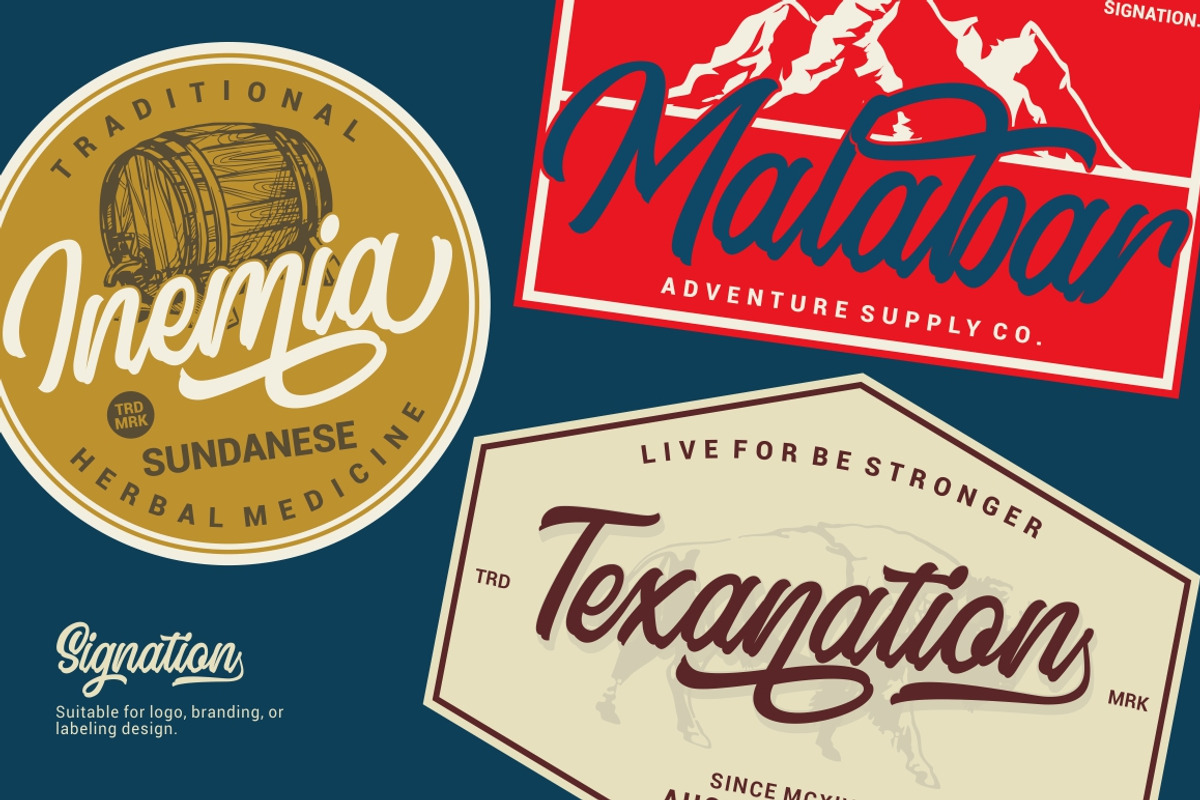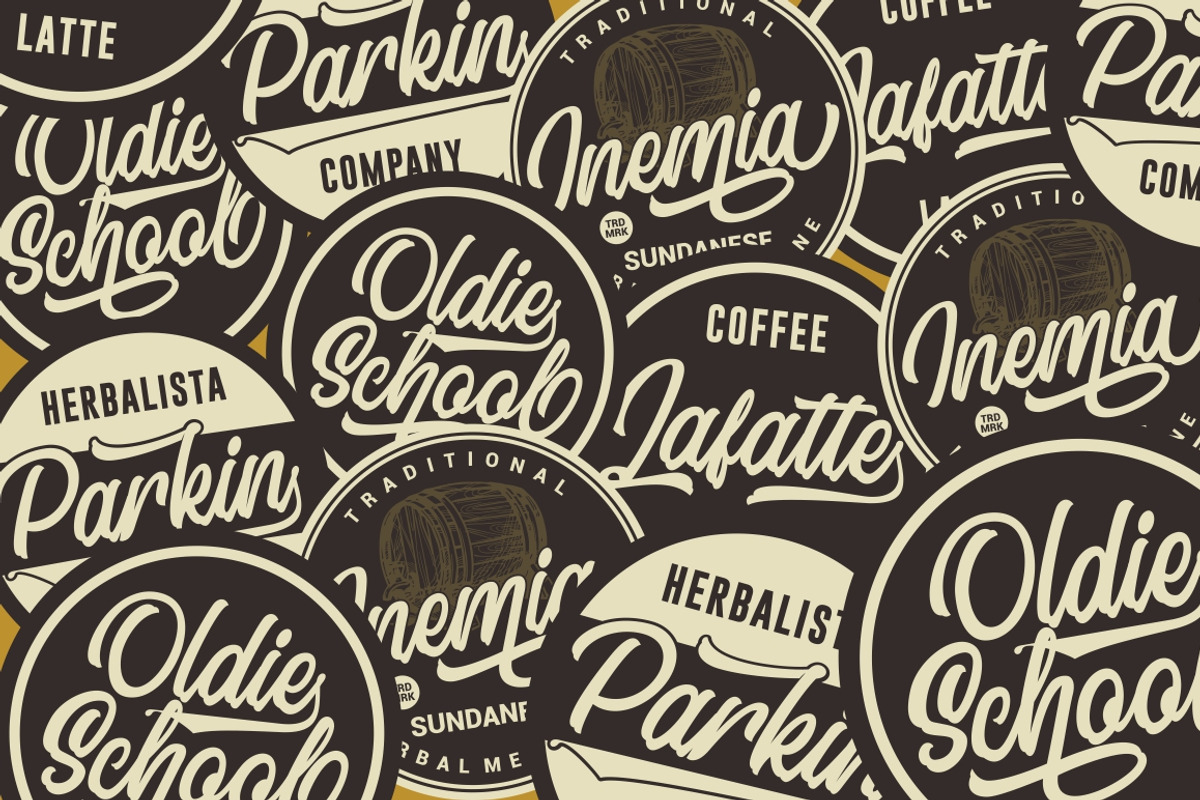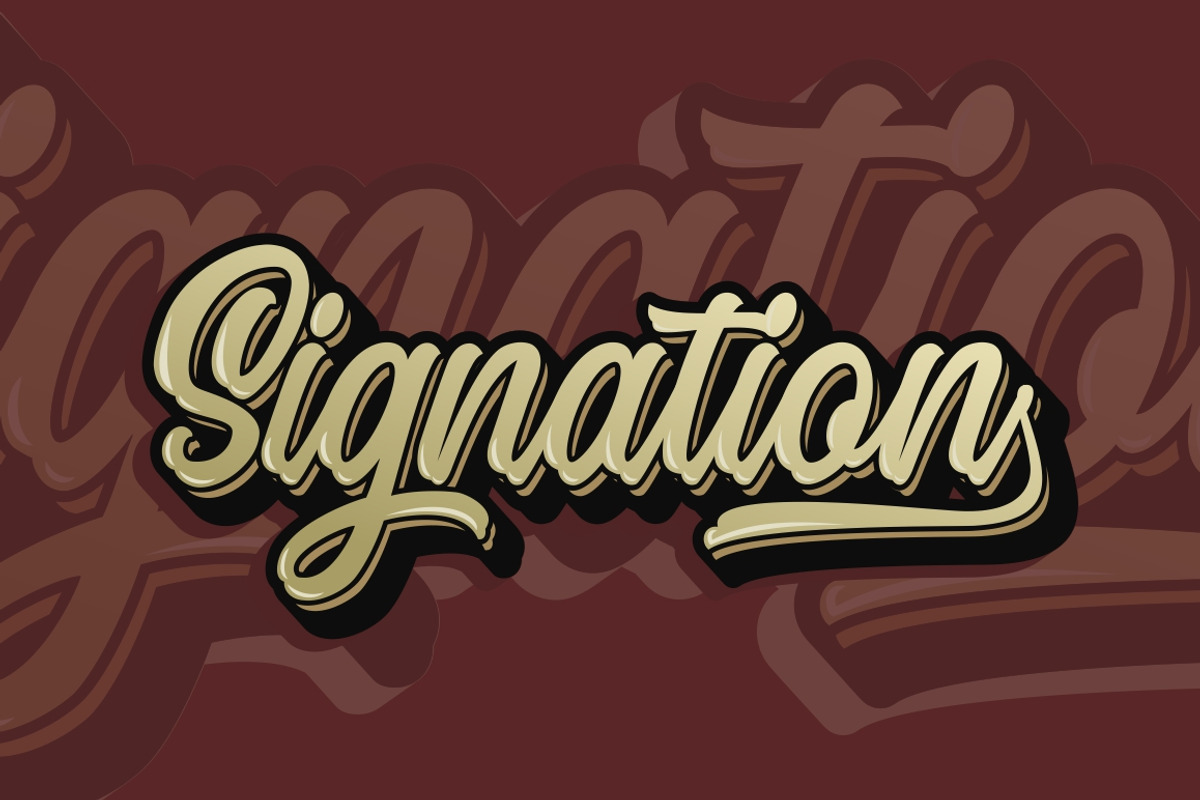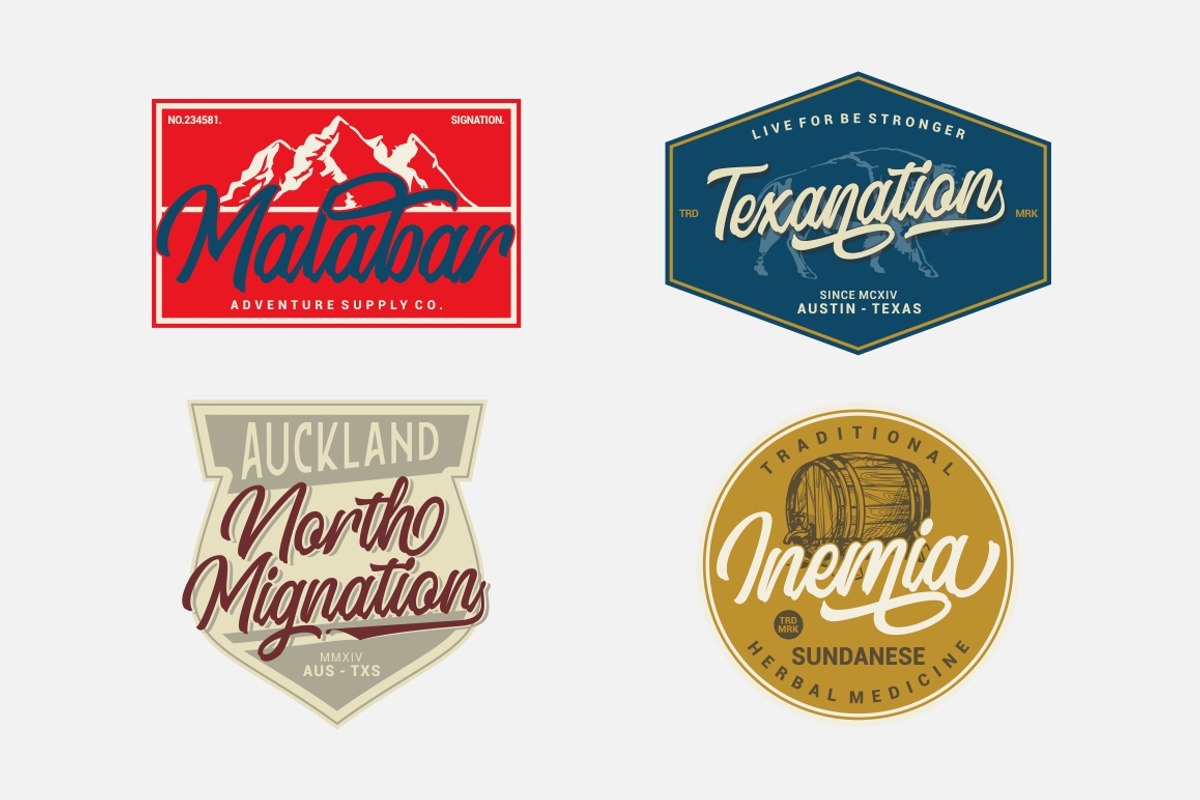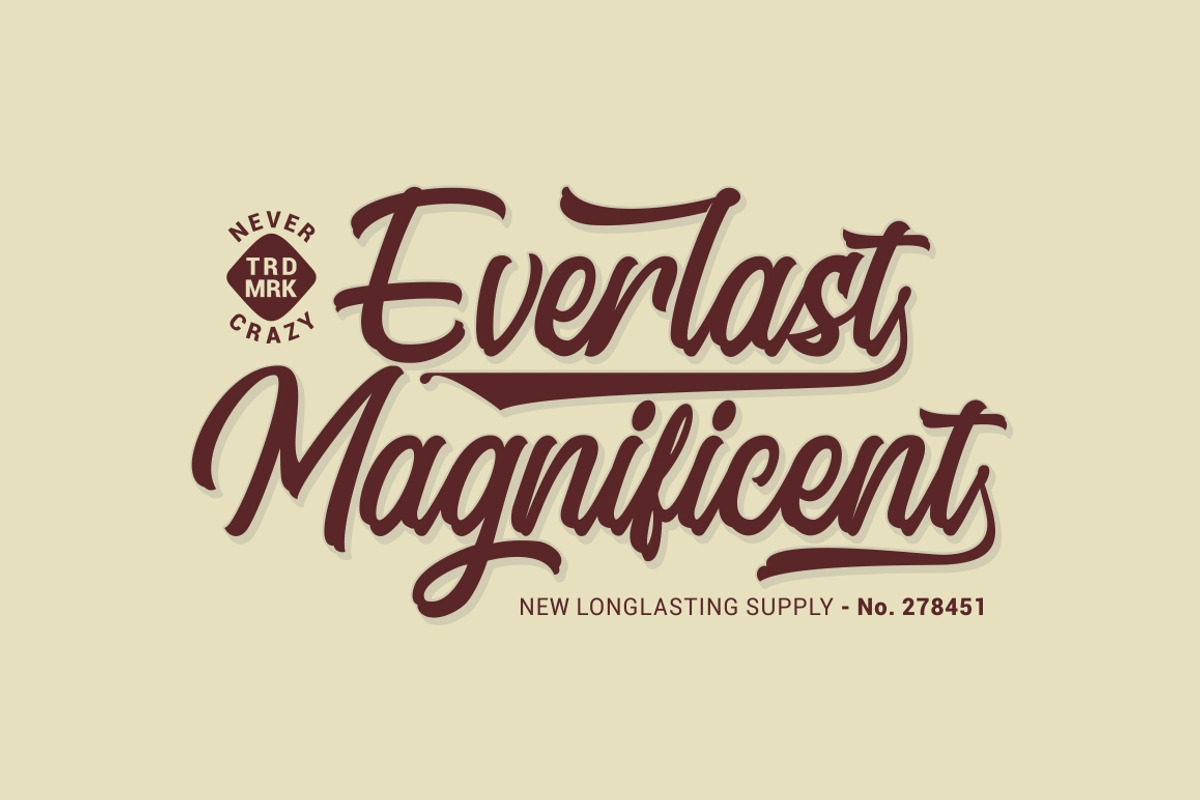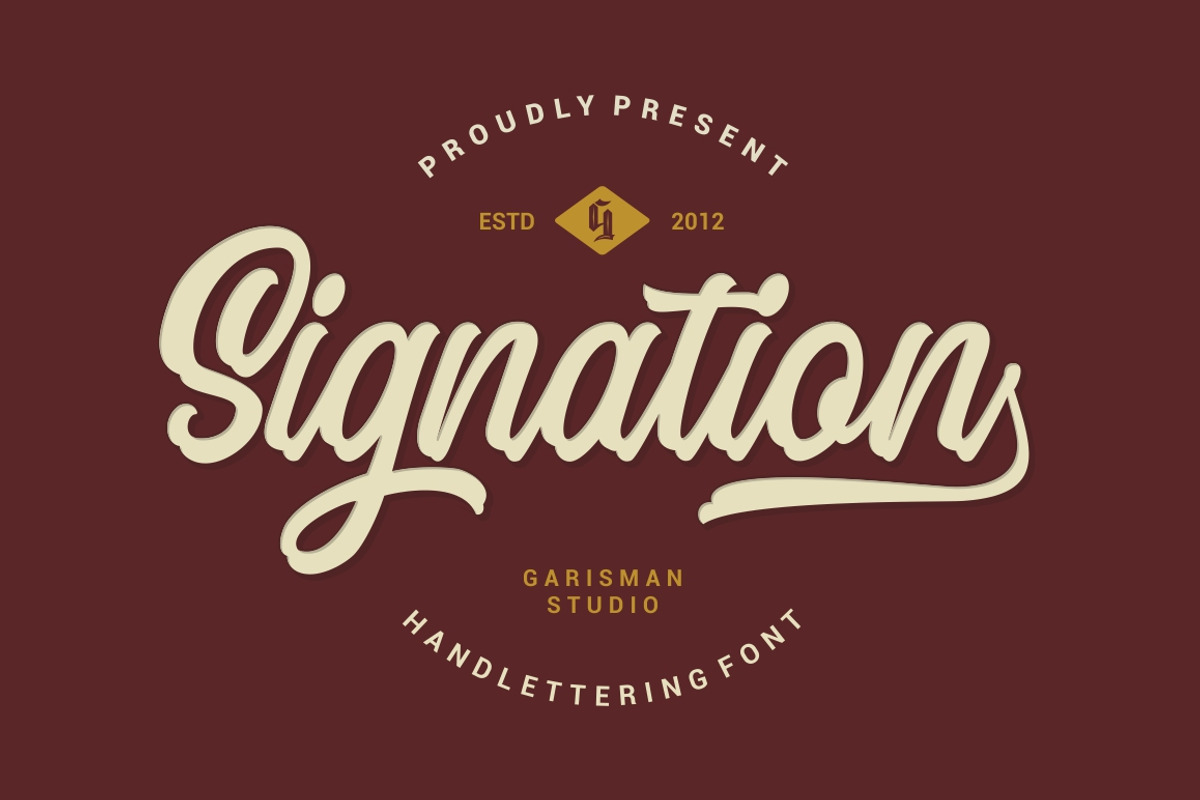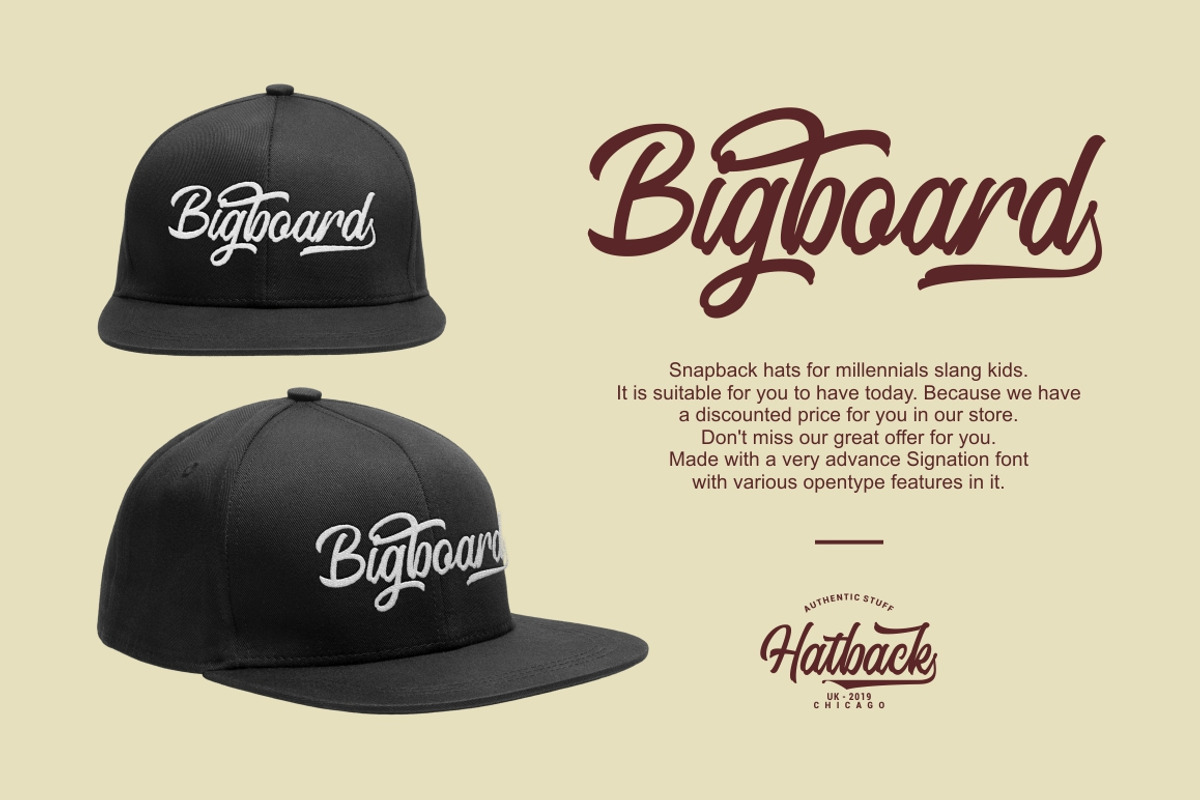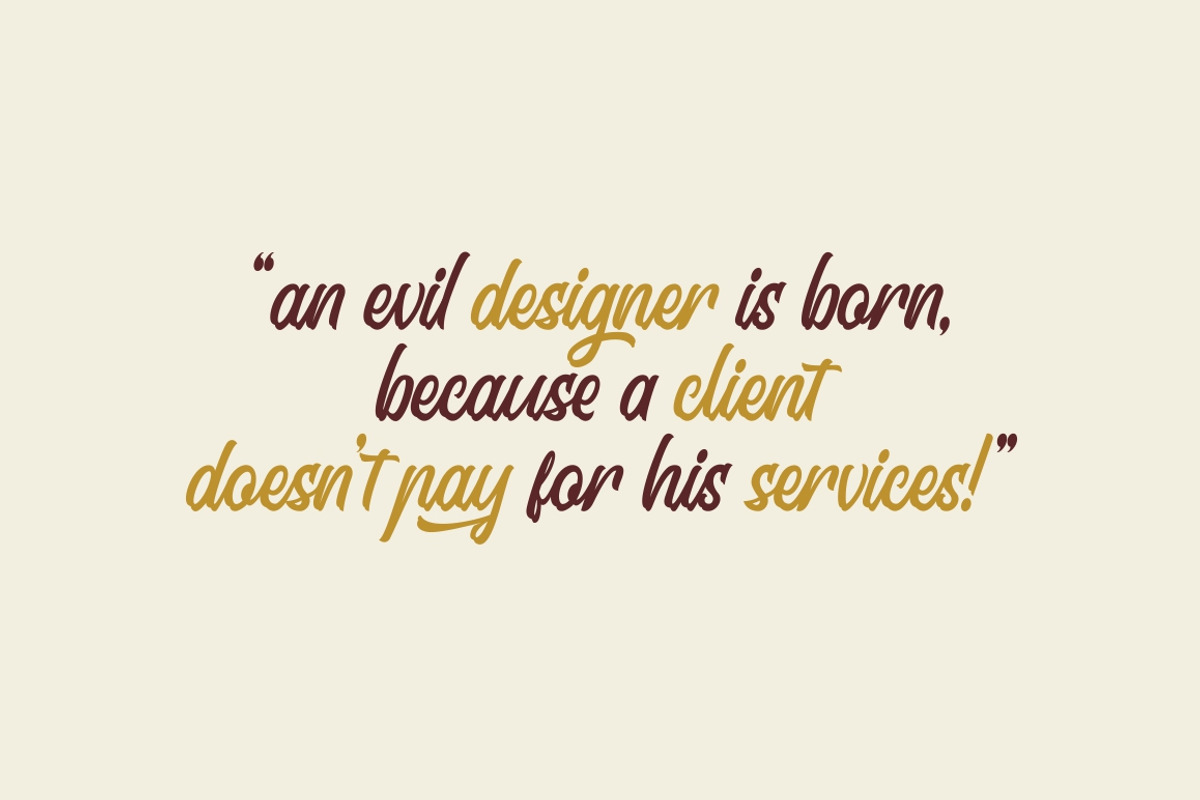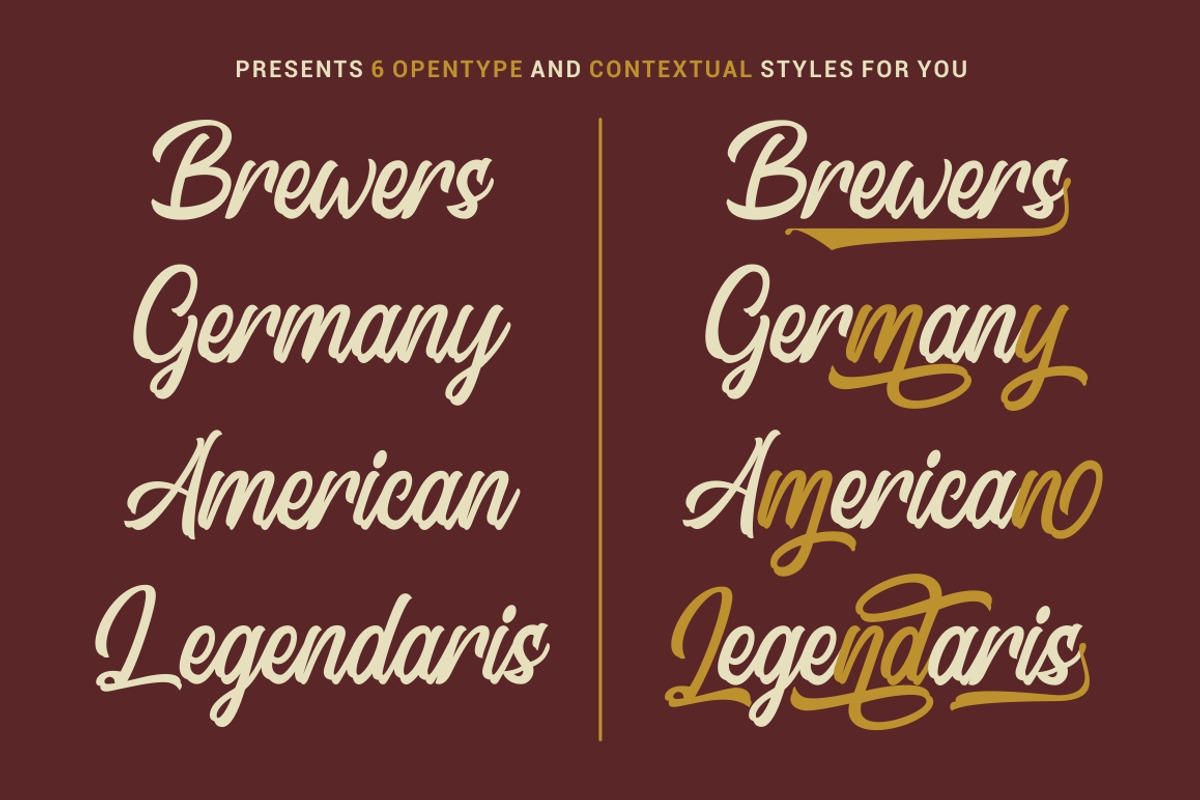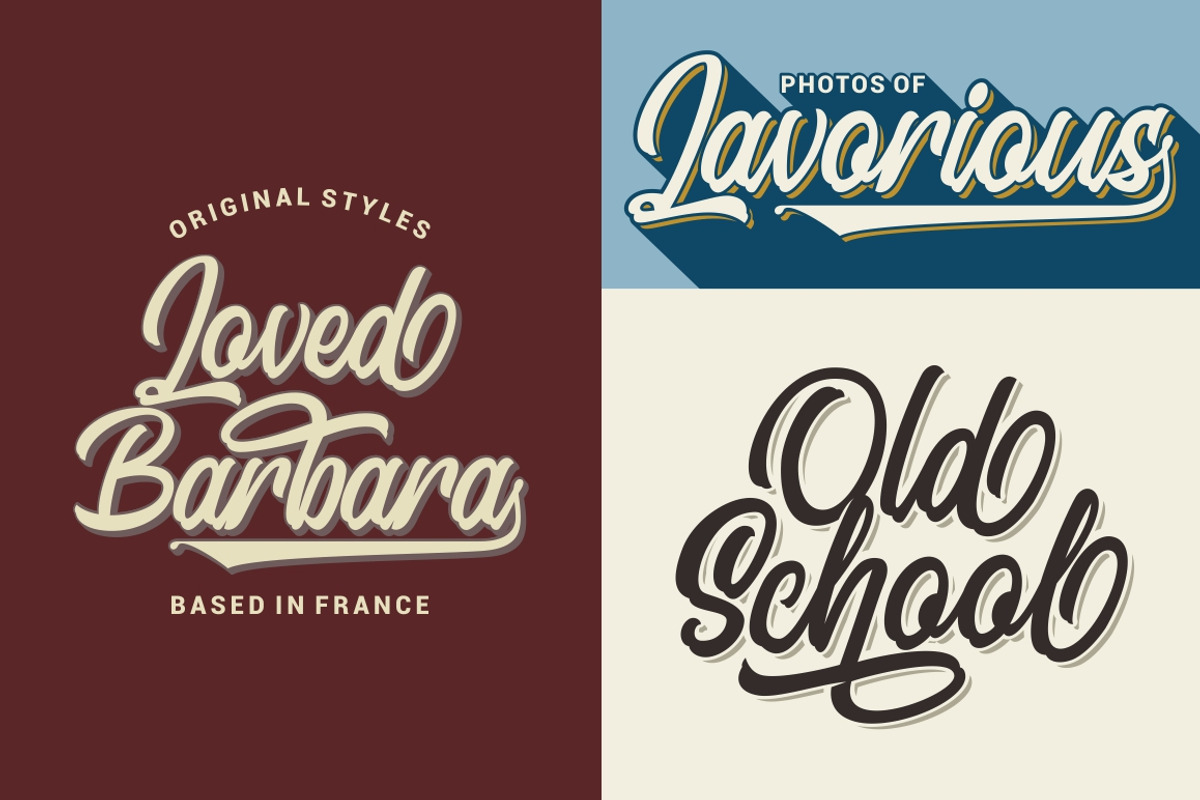
Signation - Handlettering Font
Introducing: Signation - Script Font
Signation comes from hand scratches to get natural and natural writing. With the main style of the hand-lettering script, it will be very interesting if it is added with a variety of Alternates (Capital letters) and also Stylistic Sets that are very suitable. Signation is very suitable for use in various media such as; packaging, logos, labels, posters, shirt designs, wisdom quotes, bulletins, typography, and many other media.
- Stylistic Alternates, Stylistic Sets (SS01-SS06) & Contextual Alternates